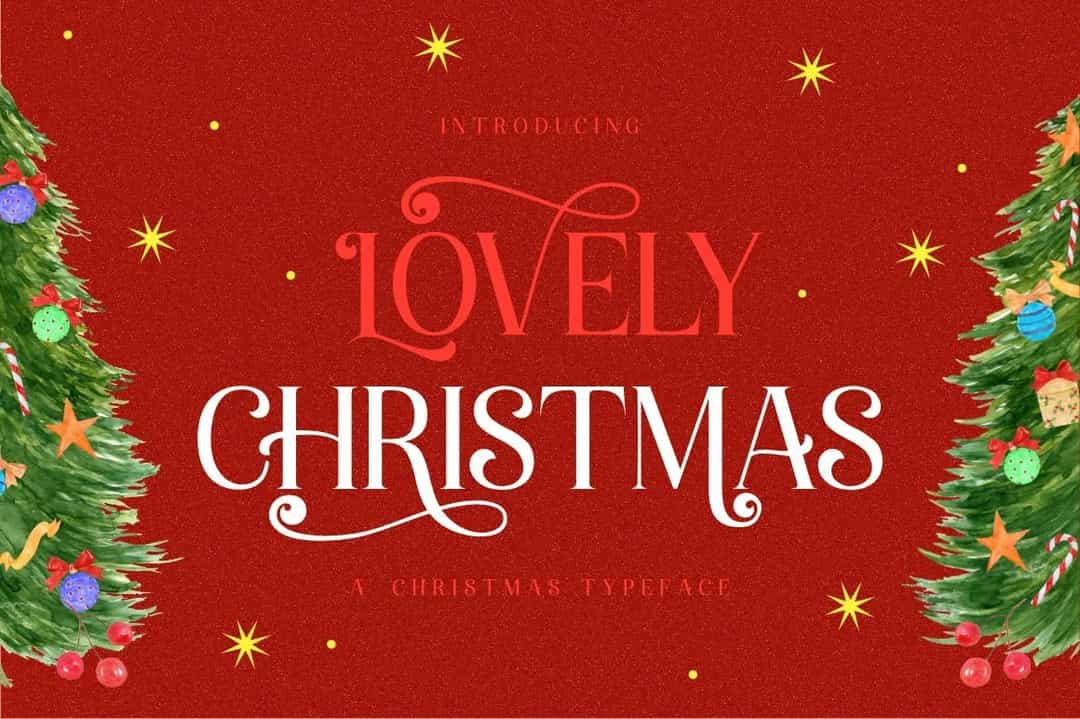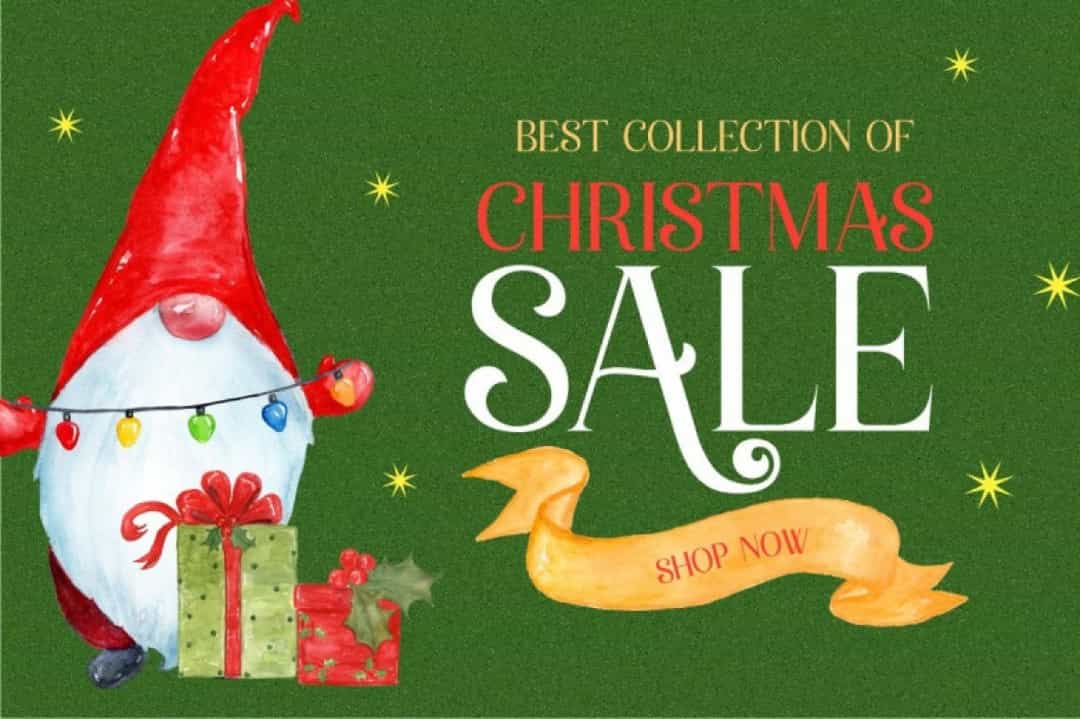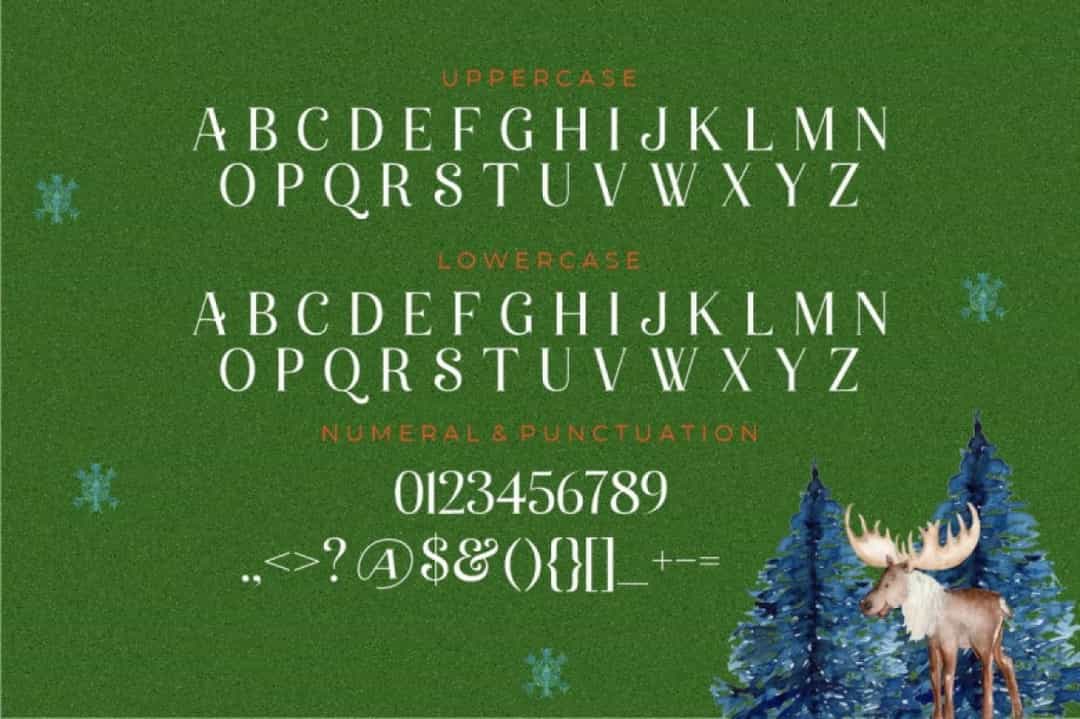
Discover Lovely Christmas Font, part of the Serif Christmas collection—a versatile and unique font perfect for adding a personal touch to your projects. Download it for free and enjoy crafting designs with style, from invitations to social media posts. This font is available exclusively for personal use, giving you the freedom to create without limits. Unlock your creativity with Lovely Christmas Font today!
Lovely Christmas is an elegant serif typeface, known for its festive, smooth characters that create stunning images. Use it in your designs and be amazed by what happens next! You won’t believe your eyes!